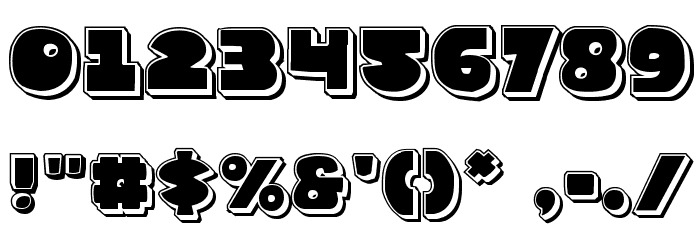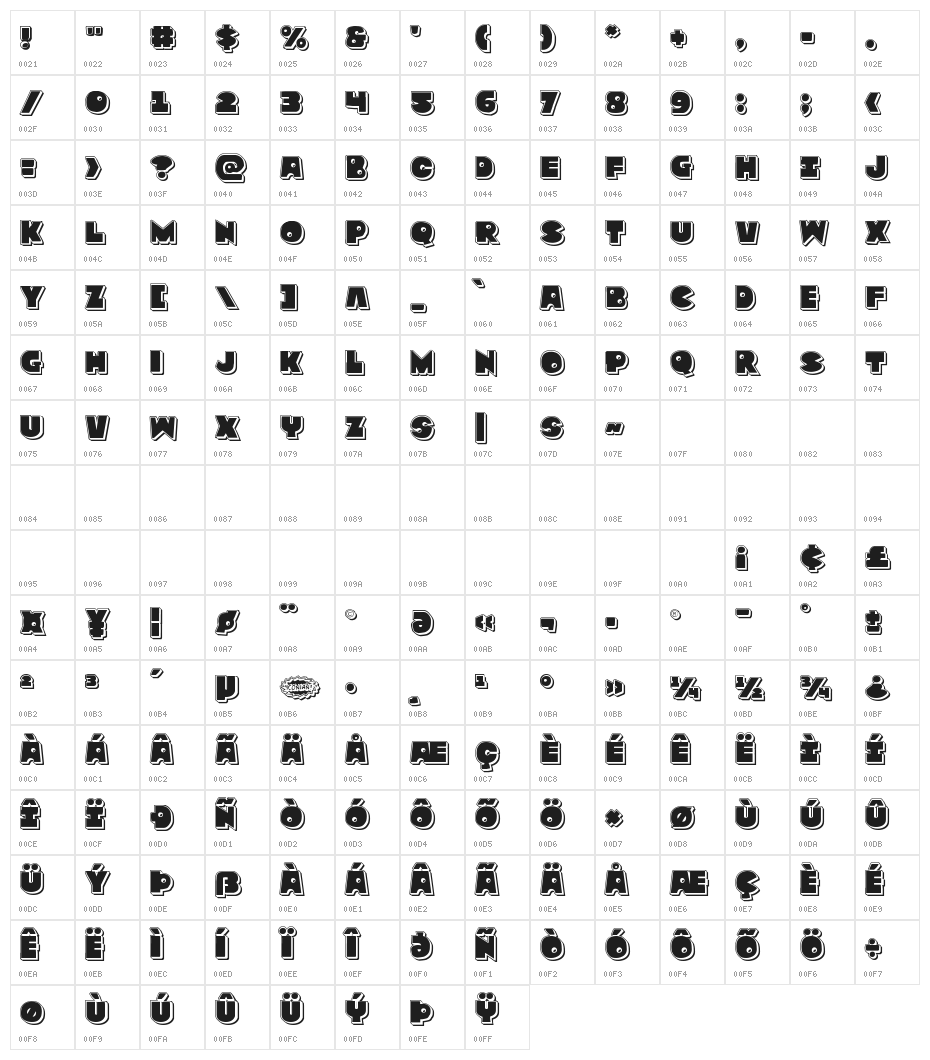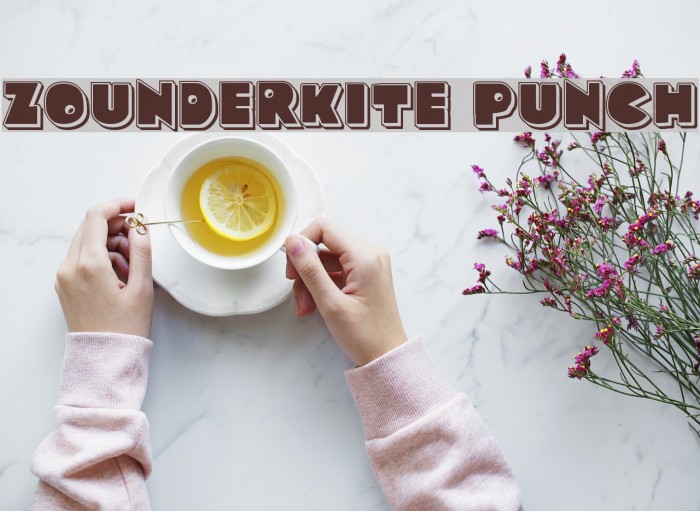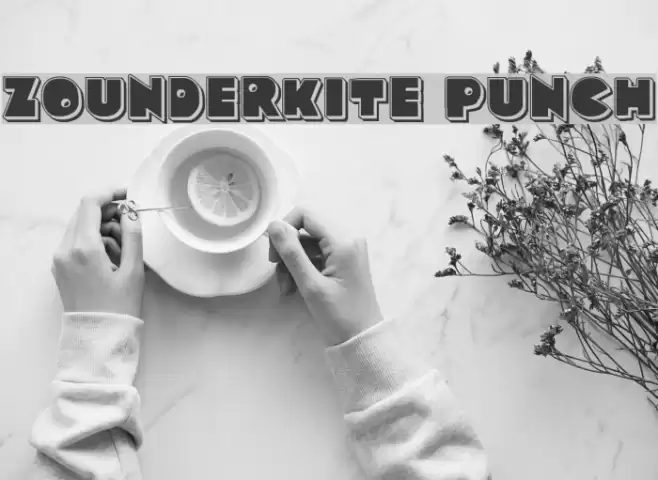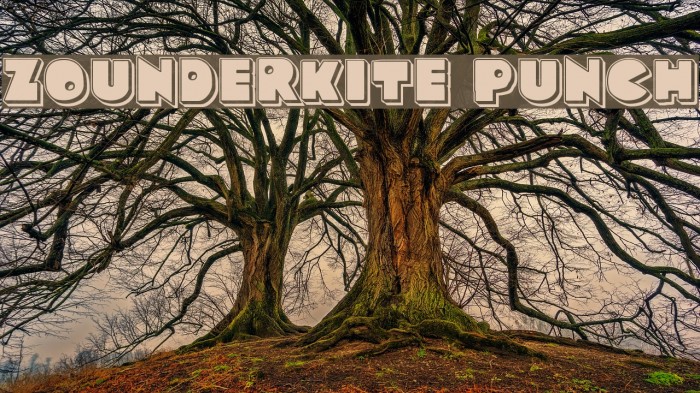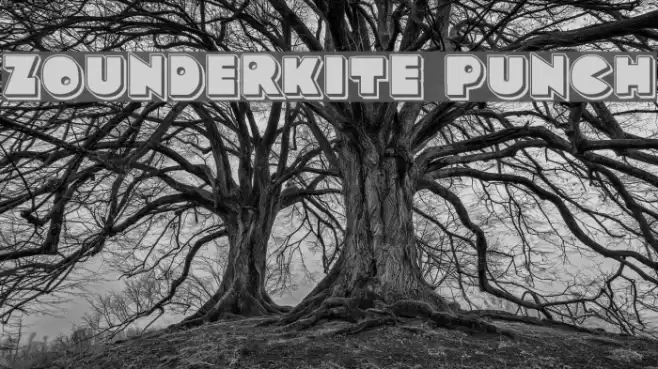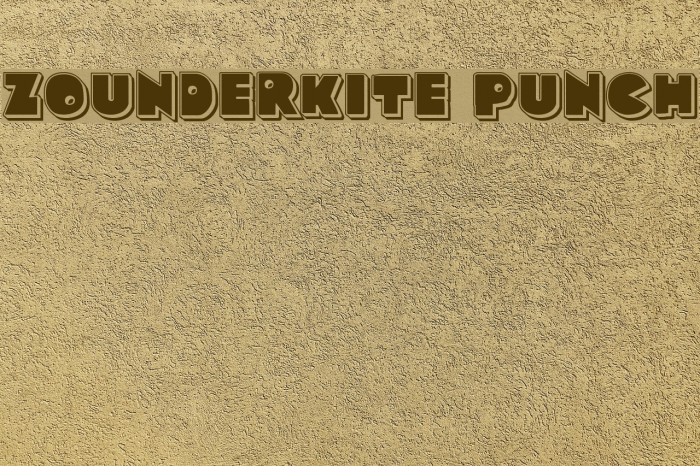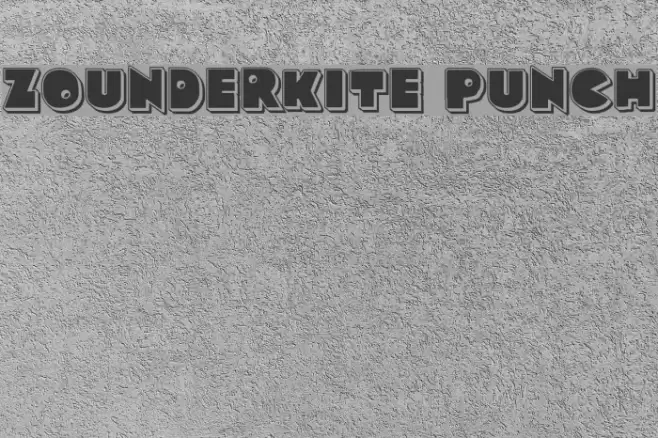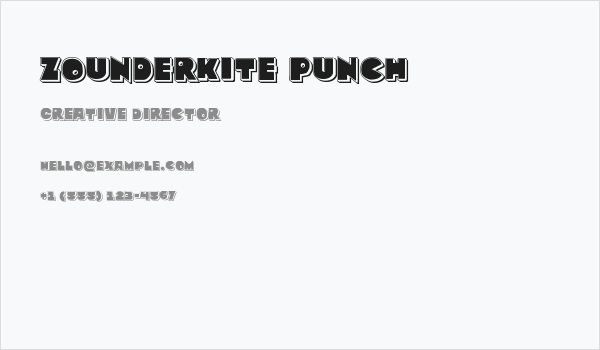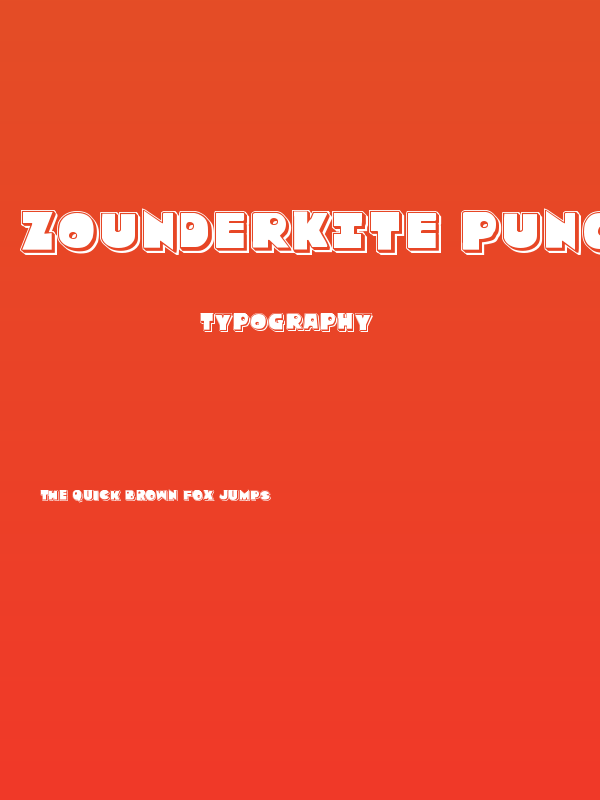
Zounderkite Punch Font
Zounderkite Punch Description
This font features a bold, playful design with a strong outline that gives each character a three-dimensional appearance. The letters are blocky and robust, with rounded edges that soften the overall look. The style is reminiscent of retro or comic book aesthetics, making it highly suitable for eye-catching designs. The characters are evenly spaced, ensuring readability while maintaining a fun and dynamic feel. The numbers and special characters follow the same bold and outlined style, providing consistency across all elements.
| Overall Style | Retro, Playful |
| Proposed Projects | Ideal for comic books, children's books, posters, and playful branding projects. |